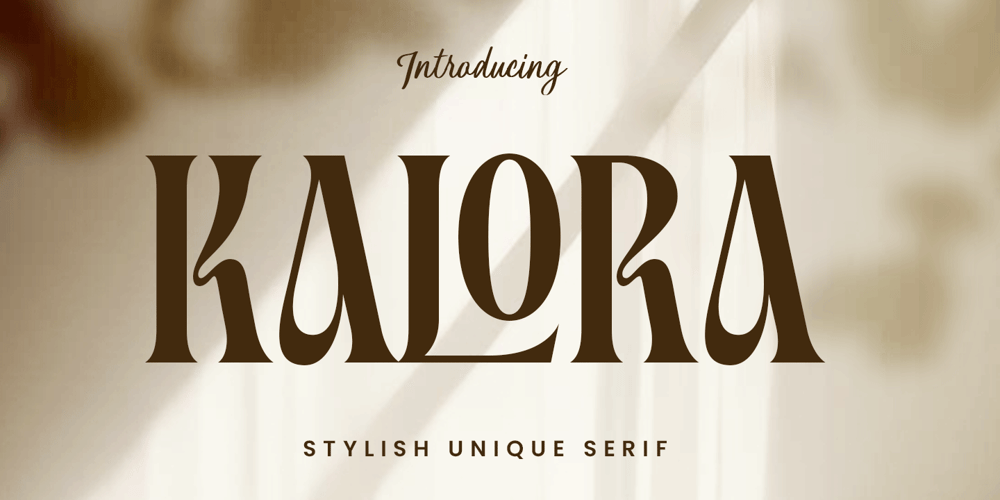
Kalora Font Family was designed by Novitasari Romli and published by Novitype. Kalora contains 1 styles and family package options. introducing Kalora, the elegant serif with a beautiful flowing twist of the letters. This font is charming and stylish and perfect for display, logos, magazines, cards, branding, and quotes.Kalora is a condensed font carefully crafted in delicate touch and elegant, also with impressive special characters and ligatures, making your project more charming!Fonts featured : Uppercase Lowercase Numbers & punctuation Symbols Stylistic alternates Multilingual support